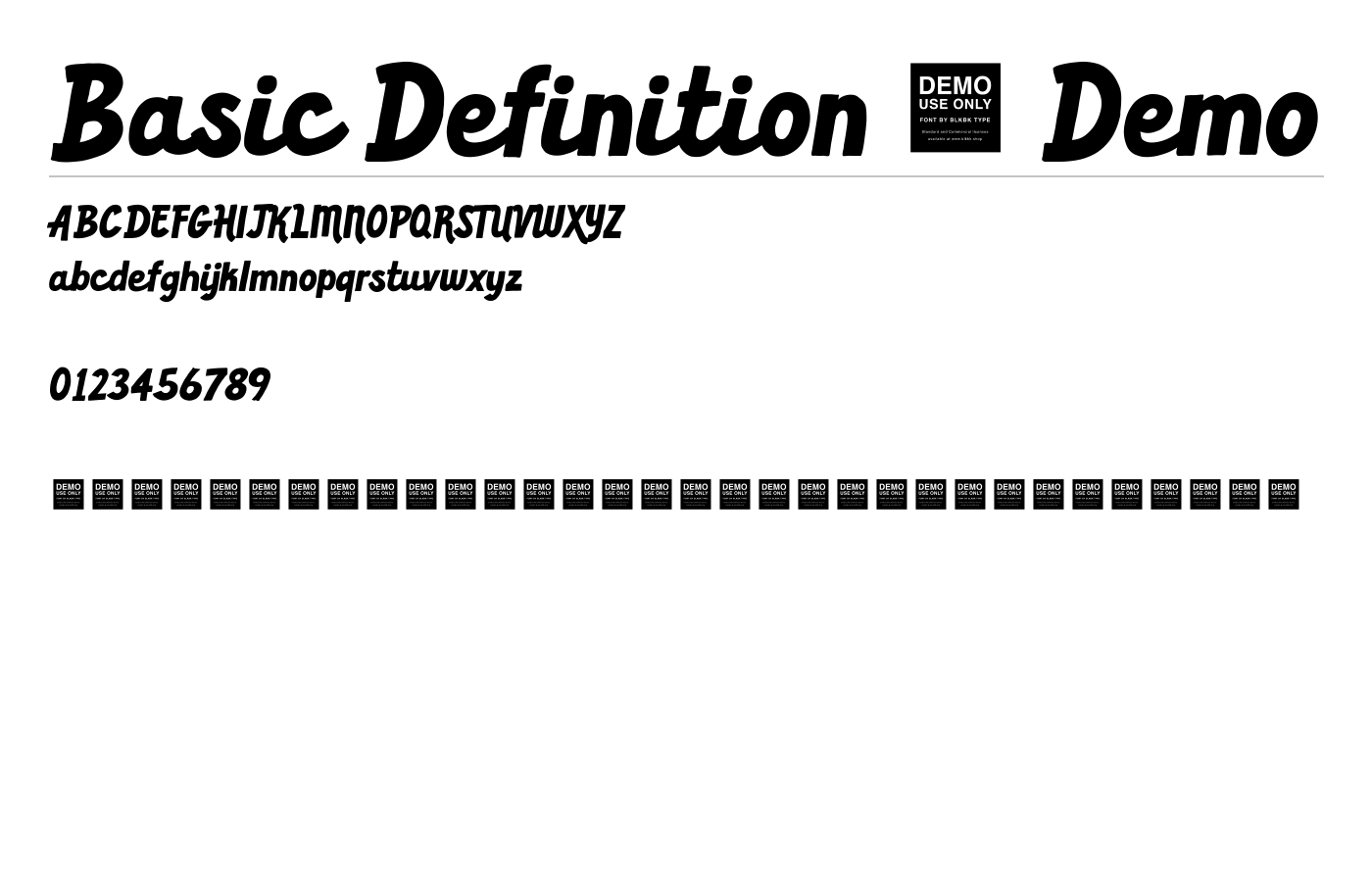
Basic Definition is a bold, playful script font with a casual, hand-lettered feel. Its slightly condensed letterforms and moderate contrast make it energetic and approachable, perfect for adding personality to logos, posters, and headlines. This font works well for brands seeking a friendly and informal vibe while maintaining strong readability.